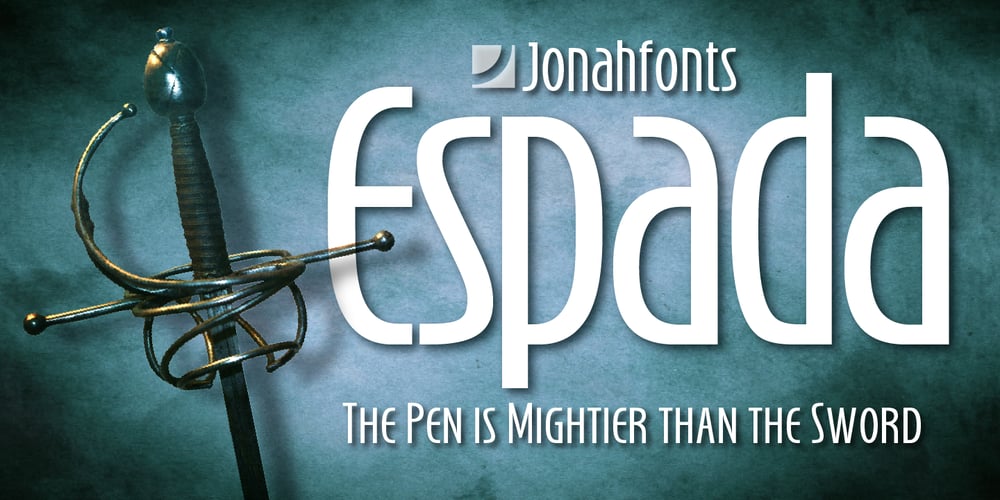
Espada Font Family was designed by John Nahmias and published by Jonahfonts. Espada contains 2 styles and family package options. Legible, dynamic and modern. Very suitable for a variety of applications.